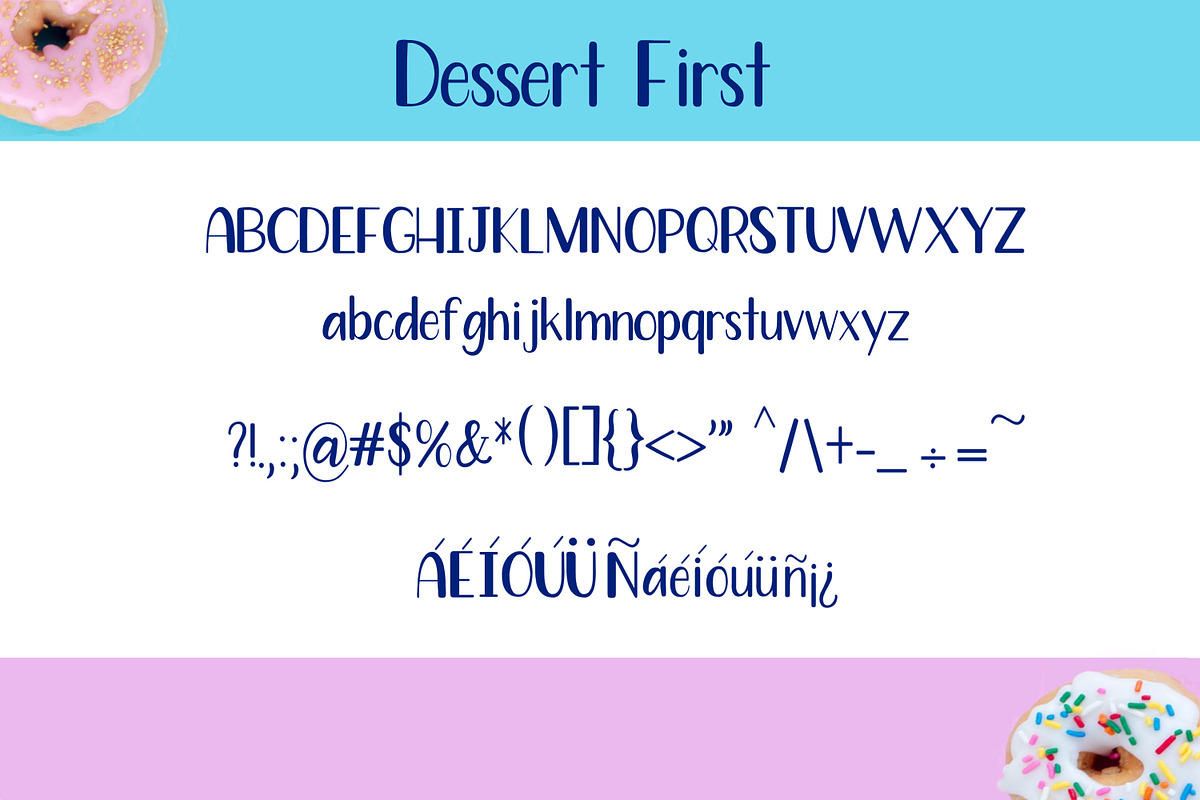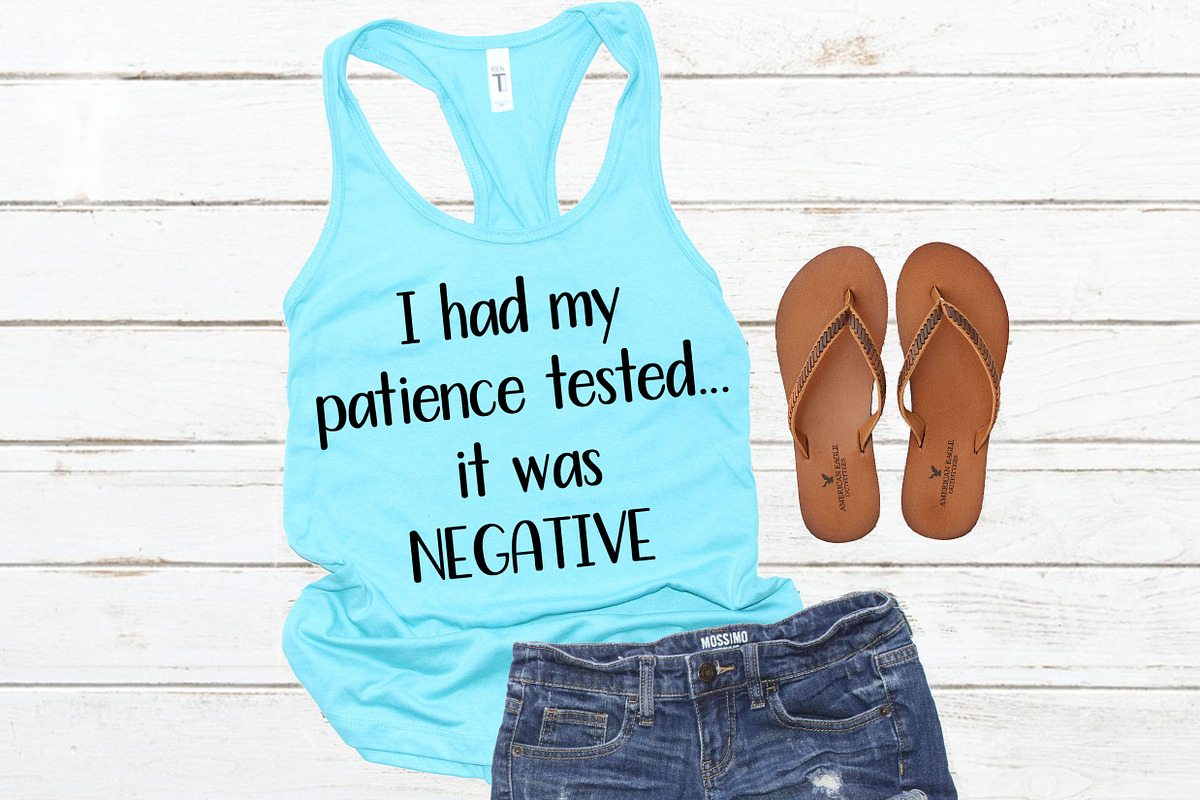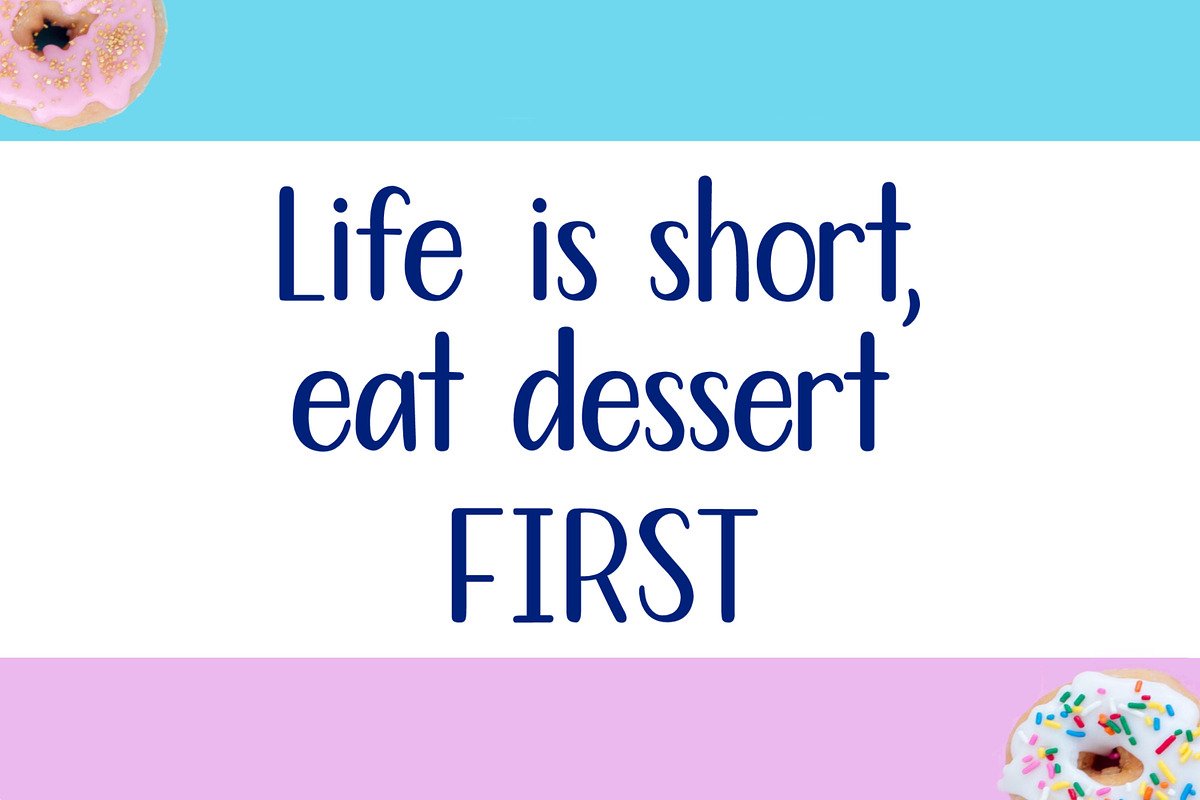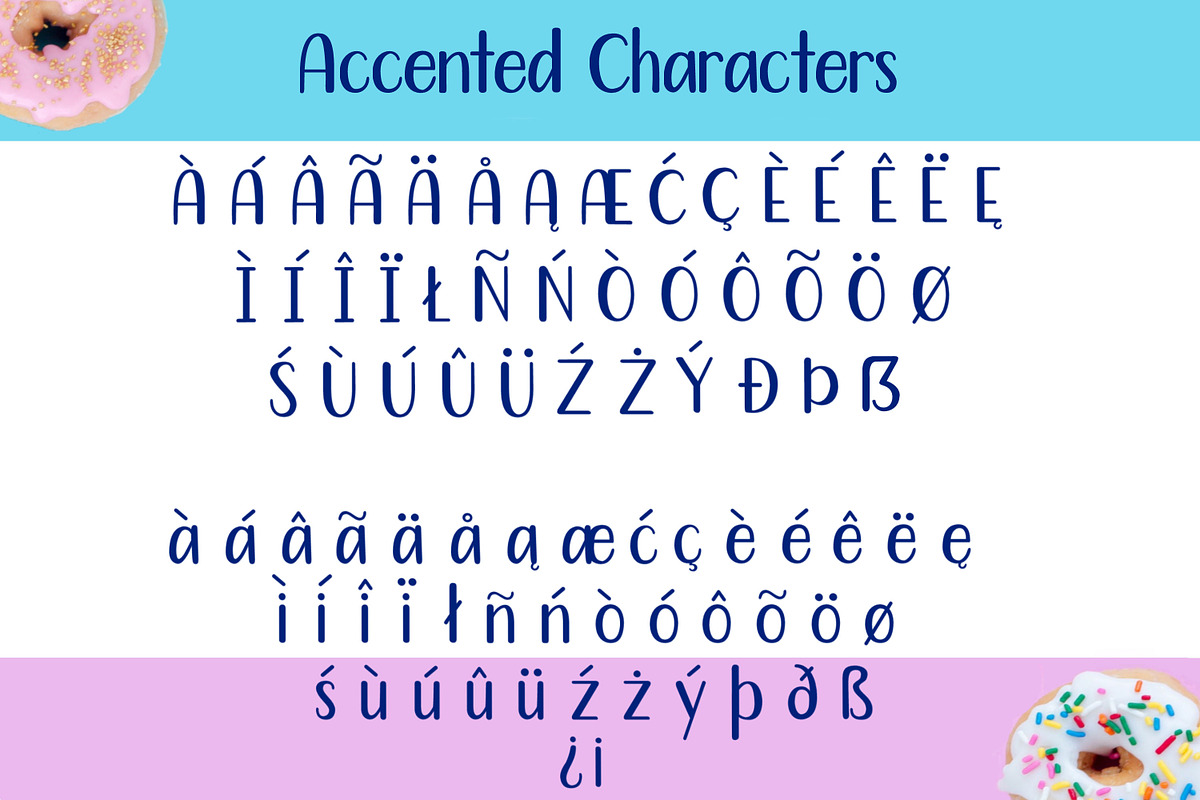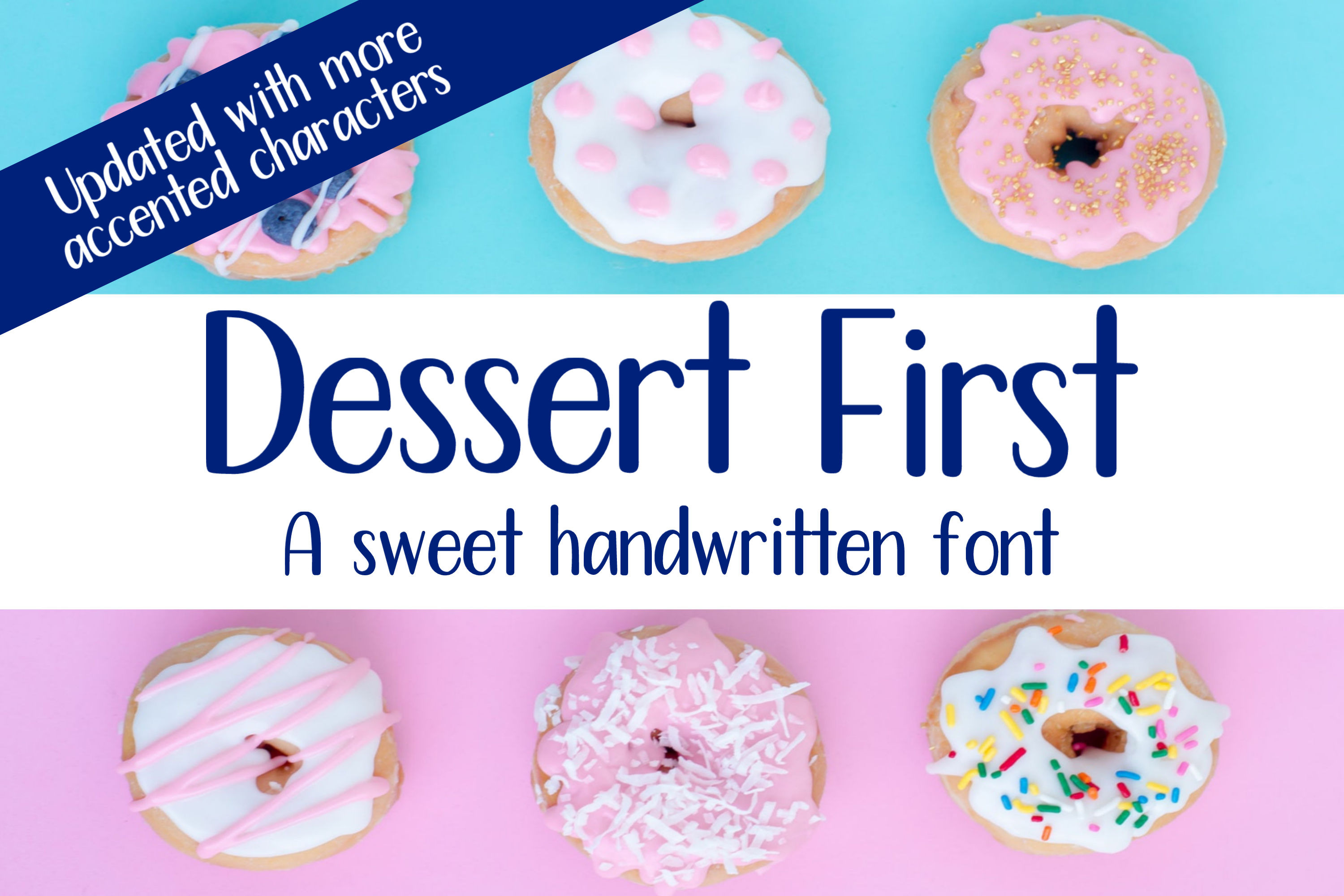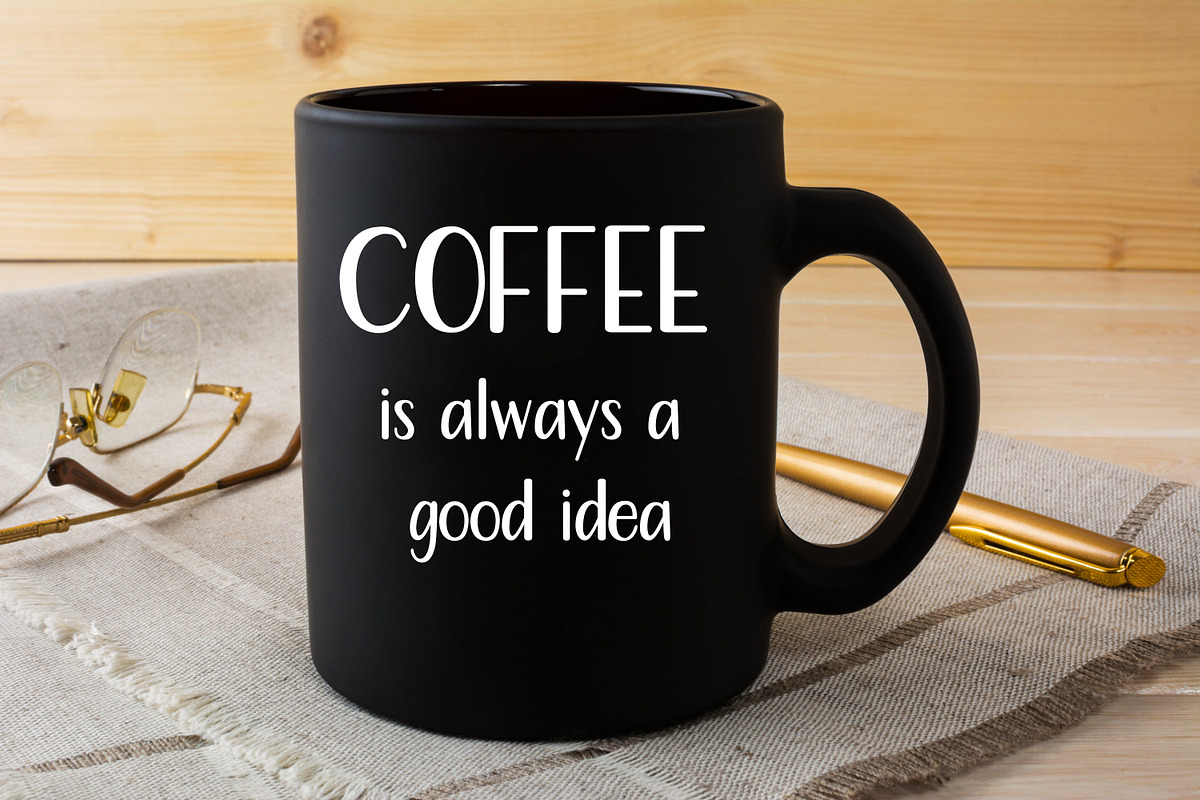
Dessert First - Handwritten Font
Dessert First is a handwritten font made up of capital letters A-Z, lowercase letters a-z, numbers 0-9, punctuation, and accented characters. Dessert First is great for cards, invitations, scrapbooking, SVG design, and more!